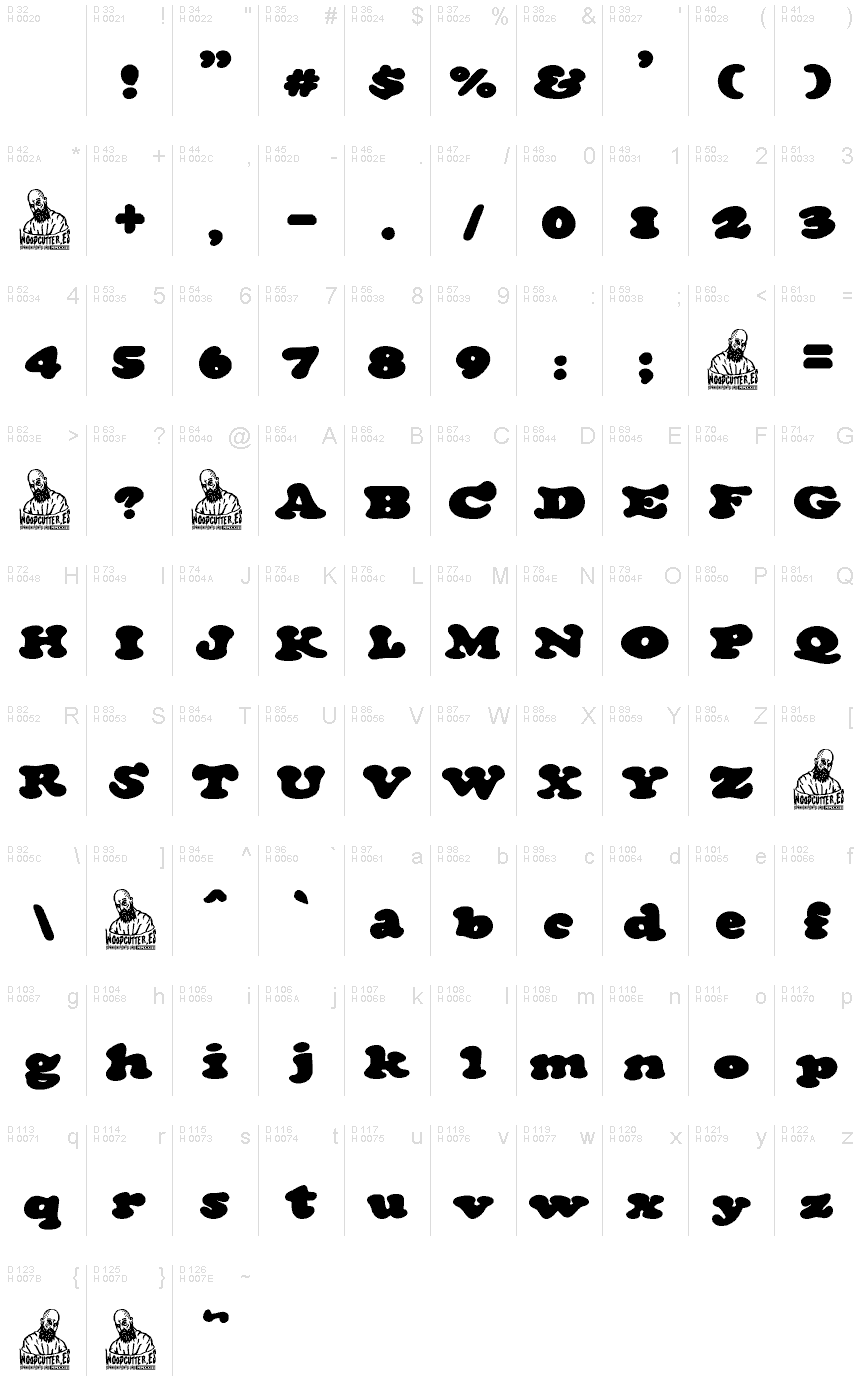
The Cream Shop
The Cream Shop font by Woodcutter is a groovy display font designed with an expanded width and smooth rounded edges. The bold typeface features plenty of quirkily-shaped glyphs that reflect a distinct retro appearance. Combined with curvy and bubbly surfaces, the free display font has a friendly tone that can be charming and whimsical.
Use The Cream Shop font to add personalized branding to product packaging for soft drinks, bakery shops, or dessert stores. Have it decorate the posters and menus of your food trucks, ice cream carts, or coffee shops. Other use cases include confectionery stands, cartoon projects, mobile game apps, vintage publications, retro film covers/titles, album covers etc.